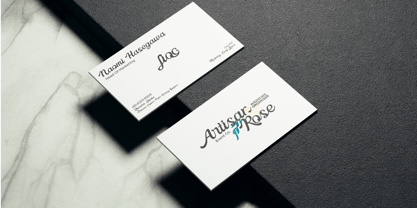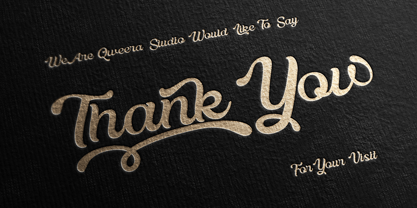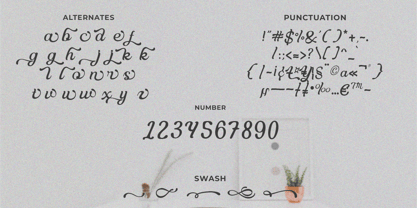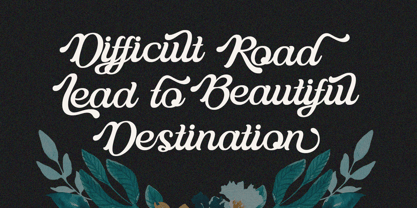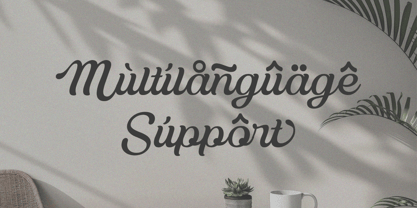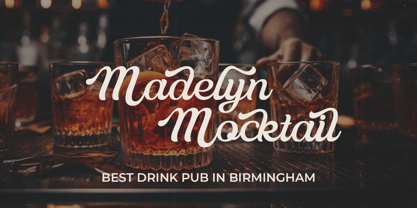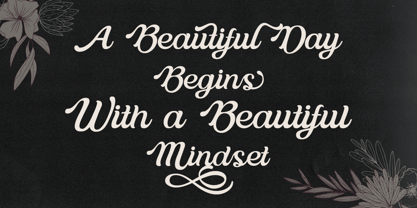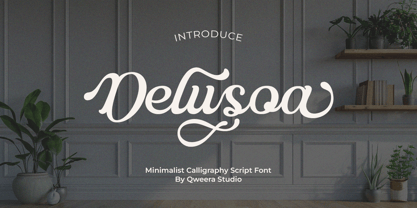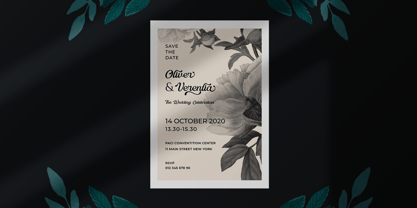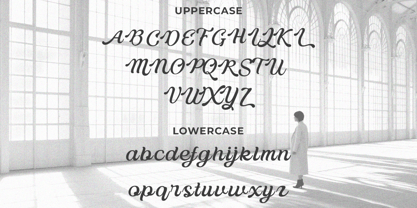
Delusoa
The Delusoa Font Family was designed by Idhham Cholid Rikzano Yahya and published by Qweera Studio. Delusoa contains 1 styles.
Delusoa – Minimalist Calligraphy Script Font
Delusoa is a stylish minimalist calligraphy script font with elegant alternates and swashes. Designed for flexibility, it allows users to create stunning typography effortlessly. Perfect for branding, posters, magazines, invitations, packaging, and print designs, Delusoa brings a refined and modern handwritten touch to your projects. Elevate your designs with this smooth, flowing script font.
• Opentype features ( ligature, alternate )